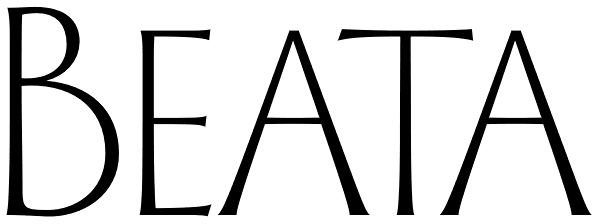
Beata LP
Beata is a delicate, attenuated design with elegant proportions, modeled on the fifteenth-century inscription by Bernardo Rossellino for the Tomb of Beata Villana in Santa Maria Novella, in Florence. The font, consisting of caps and small caps, was...